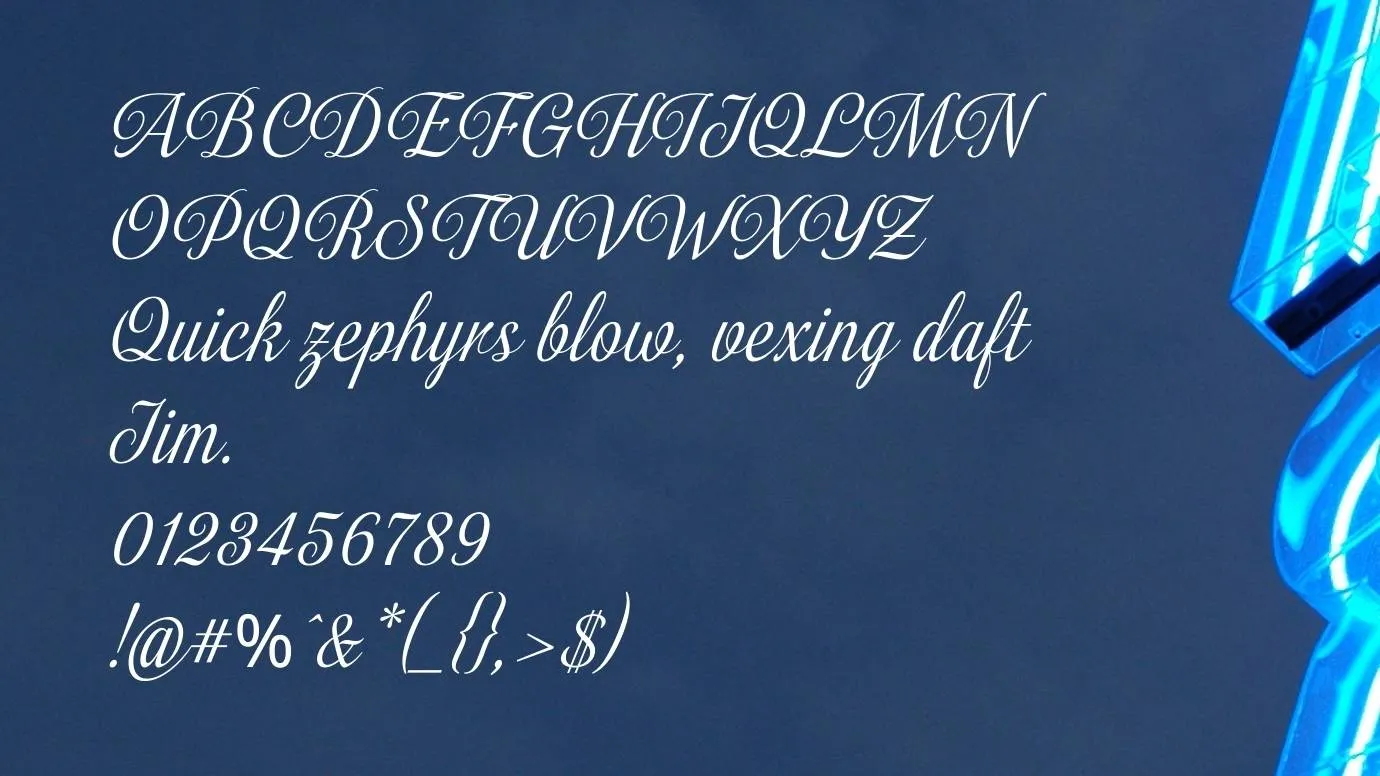
Many businesses and designers are in pursuit of a sophisticated and handwritten texture style. Today, we are pleased to introduce you to Almibar Font, a Calligraphy font with a creative and formal texture. This typeface features a stylish appearance that is ideal for script writing. The characters in this font are meticulously designed, making it perfect for elevating your projects and catching the eye of your audience. Scriptwriters and article writers alike are using this exquisite typeface to add texture to their work.
Every single texture in this font style is designed with pure perfection which gives your design an elegant and formal look. With its executive look, it can be perfect for creating invitation cards, logos, Letters, Applications, etc. It is also well-known among designers because of its formal and attractive text characteristics. As a result, numerous designers are employing this typeface in their varied projects and designs. This typeface has a beautiful texture that is both attractive and unusual.
As a result, this font is widely used on T-shirts to create textural designs. This typeface is also used for design purposes in a variety of presentations and articles. This font style is used by a lot of companies to mark their brands and projects. This typeface has a formal and elegant feel as well as graceful writing. As a result, numerous fashion brands use this font design in their periodicals. Youtubers are also using this font style for creating the thumbnails for their channels that attract the attention of users.
Creator of Almibar Font
This unique and creative font style has been designed by Manuel Eduardo Corradine. He lives in Colombia. He is a famous illustrator and font designer who has also designed many of the famous fonts that are used in creative designs and projects.
This font style has been designed with a single style. So, this single style feature includes uppercase alphabets, lowercase alphabets, glyphs, punctuation, digits, symbols, and special characters, as well as language support, which are all included in this single design.
| Name | Almibar Font |
| Style | Decorative |
| Designer | Manuel Eduardo Corradine |
What Type of Font Is Almibar font?
This font is a calligraphy font that has a unique and rounded texture appearance that is best for creative and formal designs.
What’s the Closest Font to Almibar font?
There are some typographies that are similar to this font style. But Hill Billies font has the most similar to this font.
What is the Almibar font used for?
This font style has no limitations of usage. This font style is also utilized in creating posters, banners, T-shirt designs, Pana flex, birthday wishes cards, invitation cards, shops names, etc.